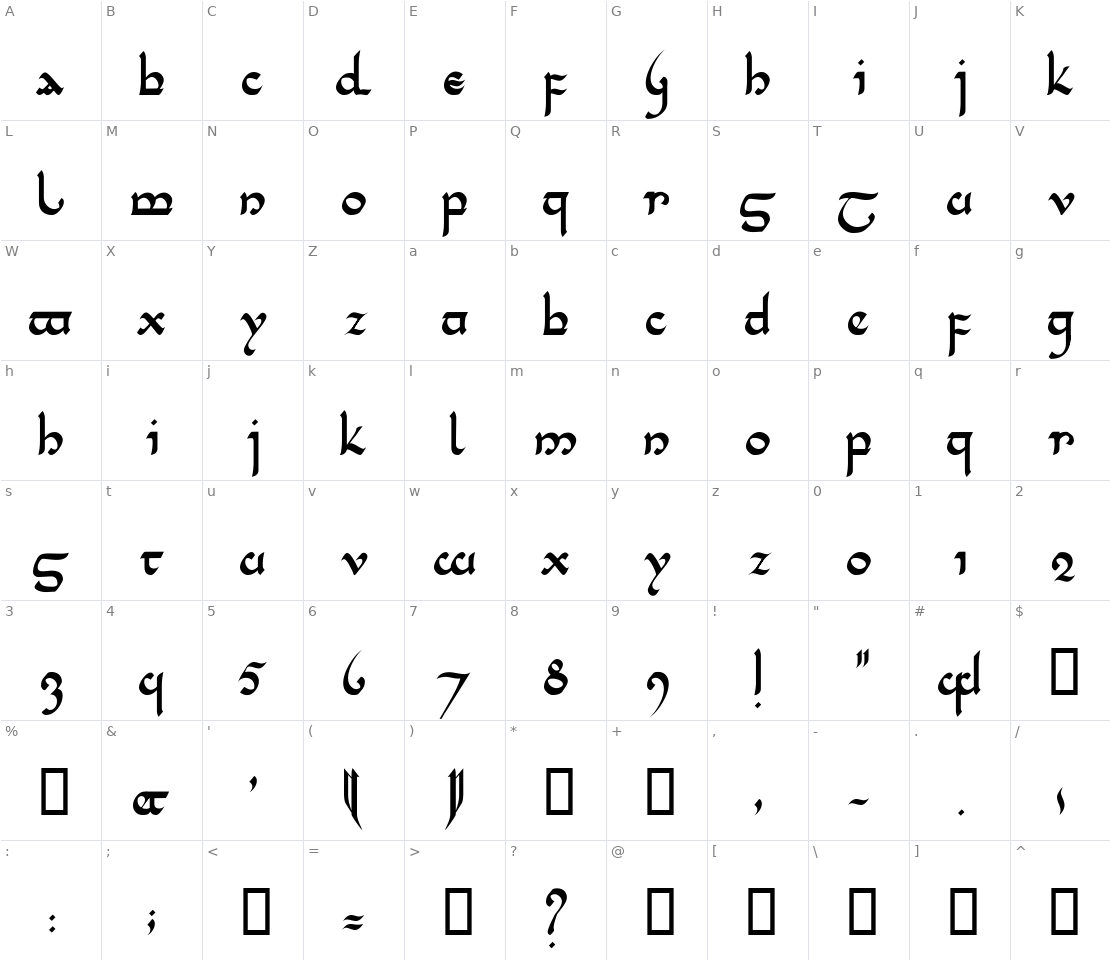
Tencele Latinwa
by Ronald Kyrmse
Tencele Latinwa is a bold uncial face by Ronald Kyrmse with rounded, calligraphic letterforms rooted in the medieval scribal tradition. The strokes carry real weight and a hand-lettered warmth, giving it an authentically historical feel without looking like a generic Celtic novelty font. Best used for headlines, titles, and decorative text in projects that call for a sense of manuscript-era craftsmanship.